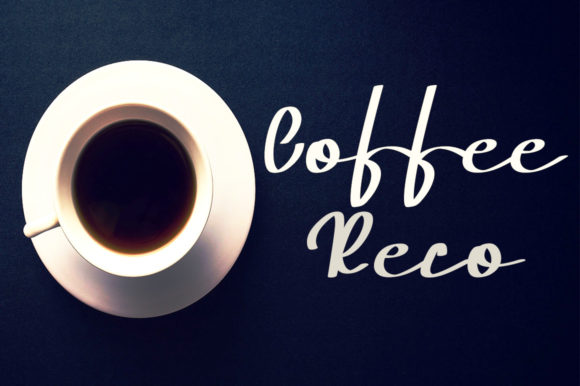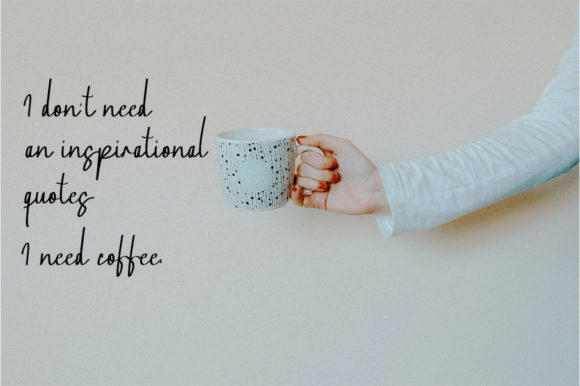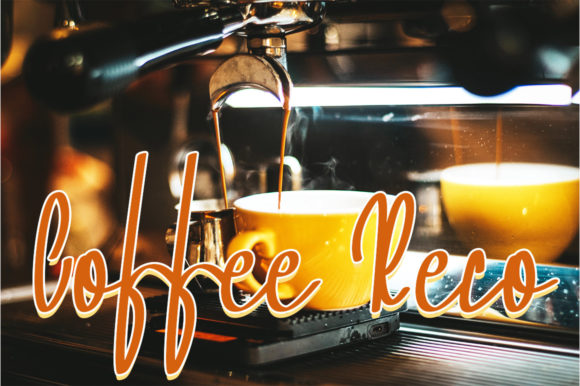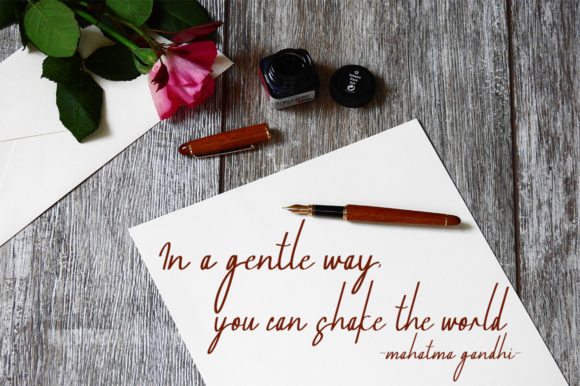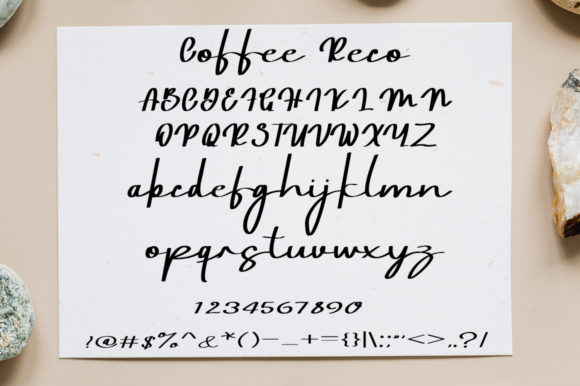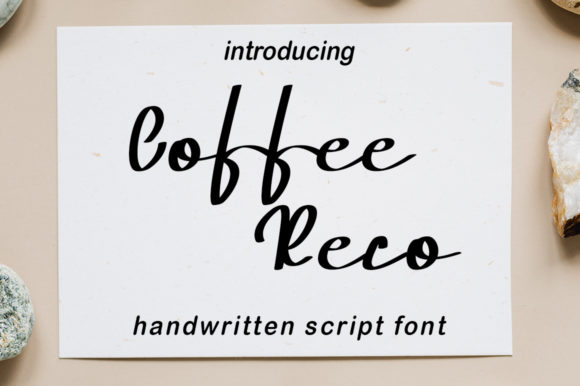
Coffee Reco Font: The Perfect Choice for Romantic and Delicate Designs
Coffee Reco is a beautiful, sweet, and delicate handwritten font that is sure to capture the hearts of designers and crafters alike. This dainty and joyful font is perfect for adding a romantic and personalized touch to various designs, making it an ideal choice for wedding invitations, cards, and other special projects.
What Makes Coffee Reco Font So Special?
Coffee Reco font is a unique and elegant handwritten font that exudes a sense of sophistication and charm. Its delicate strokes and sweet letterforms make it perfect for creating beautiful and eye-catching designs. Whether you’re looking to create a romantic wedding invitation, a heartfelt card, or a personalized gift tag, Coffee Reco font is sure to impress.
Key Features of Coffee Reco Font
- Handwritten style: Coffee Reco font is a beautiful handwritten font that mimics the look of elegant handwriting.
- Delicate strokes: The font features delicate strokes that give it a dainty and refined look.
- Sweet letterforms: The letterforms are sweet and charming, making the font perfect for romantic designs.
- Romantic feel: The font has a romantic feel that makes it perfect for wedding invitations, cards, and other special projects.
Perfect Uses for Coffee Reco Font
Coffee Reco font is versatile and can be used for a variety of design projects, including:
- Wedding invitations: The font’s romantic and elegant style makes it perfect for wedding invitations, save-the-date cards, and other wedding-related designs.
- Cards and stationery: Coffee Reco font is ideal for creating beautiful and heartfelt cards, gift tags, and other stationery designs.
- Personalized gifts: The font’s sweet and delicate style makes it perfect for creating personalized gifts, such as customized mugs, tote bags, and more.
- Digital designs: Coffee Reco font can be used for digital designs, such as social media graphics, blog headers, and more.
Why Designers and Crafters Love Coffee Reco Font
Designers and crafters love Coffee Reco font for its unique and elegant style, which adds a touch of sophistication to any design. The font’s versatility and ease of use make it a popular choice for a variety of projects. Here are some reasons why designers and crafters love Coffee Reco font:
- High-quality design: Coffee Reco font is designed with high-quality and precision, ensuring that it looks great in any design.
- Unique style: The font’s unique and elegant style sets it apart from other fonts, making it a great choice for designers and crafters who want to create something special.
Tips for Using Coffee Reco Font
Here are some tips for using Coffee Reco font in your designs:
- Pair it with other fonts: Coffee Reco font pairs well with other fonts, such as serif and sans-serif fonts. Experiment with different font combinations to find the perfect look for your design.
- Use it for headings and titles: The font’s elegant style makes it perfect for headings and titles. Use it to add a touch of sophistication to your design.
- Experiment with colors: Coffee Reco font looks great in a variety of colors. Experiment with different colors and shades to find the perfect look for your design.
| Font Name | Coffee Reco Font |
| Author | Rett’s Creative |
Coffee Reco font is a beautiful and elegant handwritten font that is perfect for adding a romantic and personalized touch to various designs. Its delicate strokes, sweet letterforms, and romantic feel make it an ideal choice for wedding invitations, cards, and other special projects. With its ease of use, high-quality design, and unique style, Coffee Reco font is a great choice for designers and crafters who want to create something special.